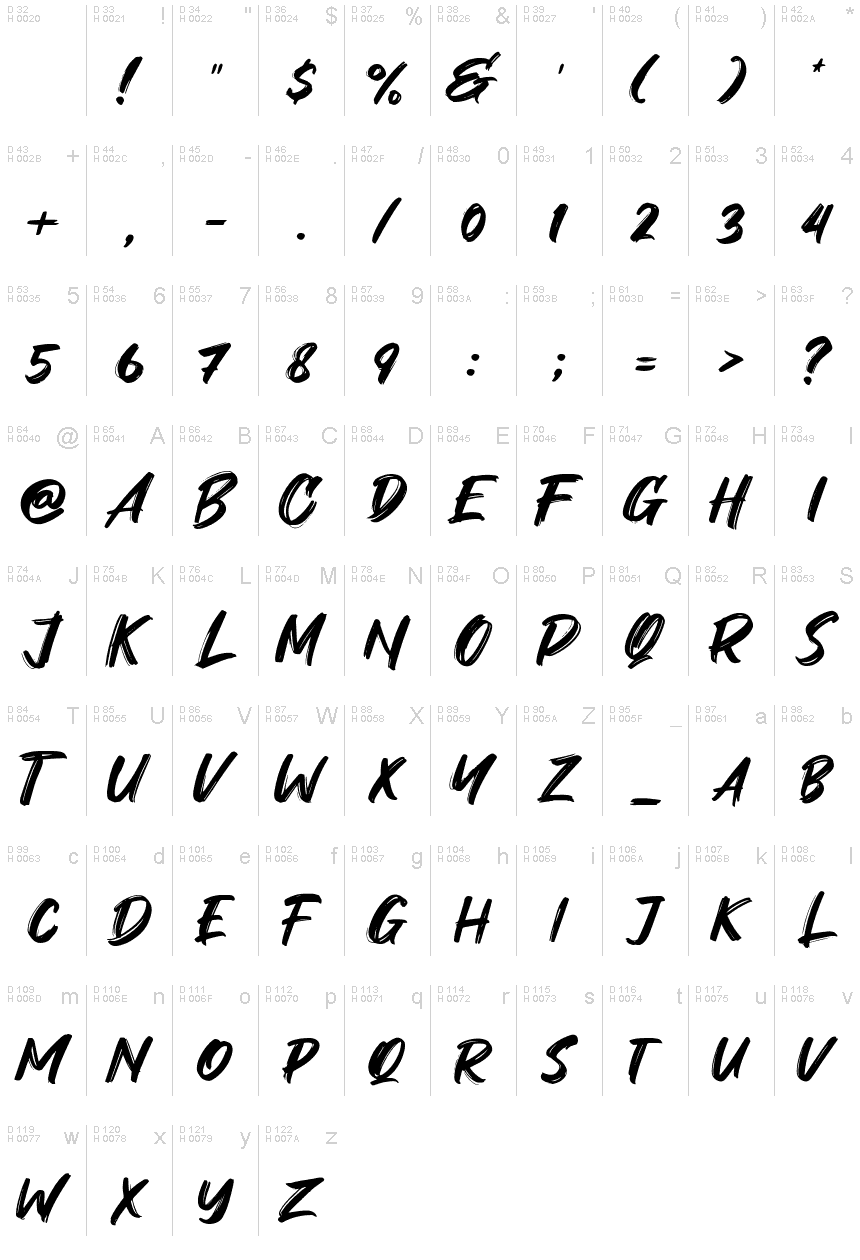
Shock Brat
Introducing Shock Brat, a modern brush font from Khurasan. Its bold weight and unique style adds a touch of personality to any project. Perfect for logos, posters, branding materials, and more!